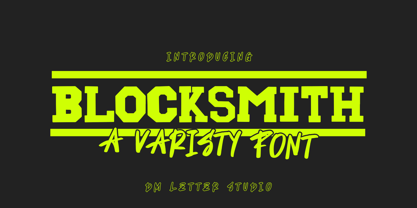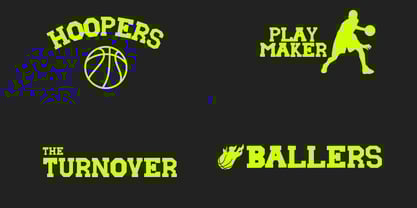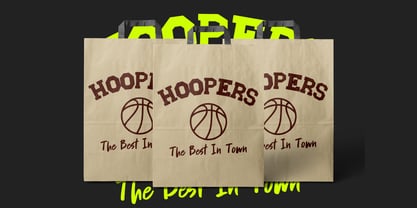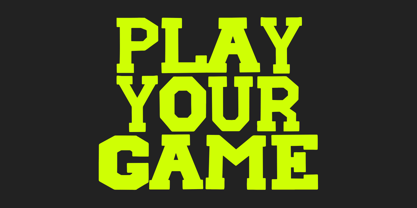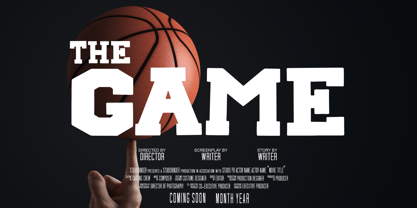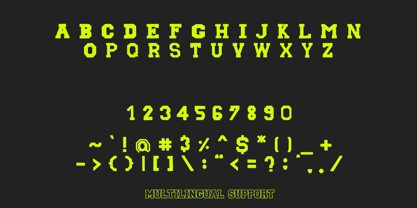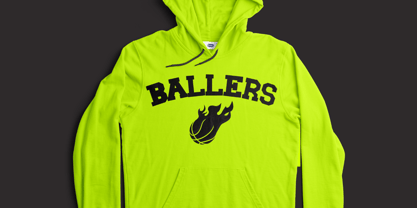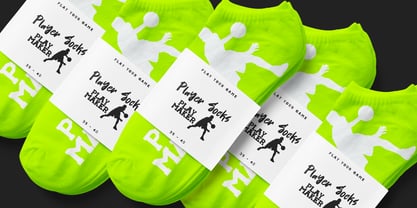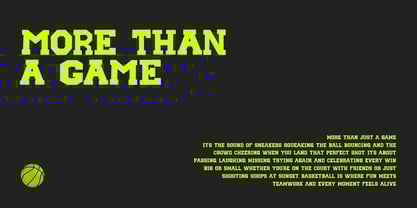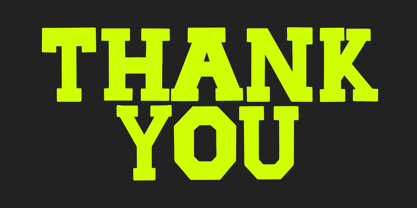
Blocksmith
by DM Studio
The Blocksmith Font Family was designed by Dimas Prasetyo and published by DM Studio. Blocksmith contains 1 styles.
Blocksmith – A Bold and Classic Varsity Font Blocksmith is a strong, all-caps varsity font built for impact. With thick strokes, sharp corners, and athletic attitude, this typeface channels school spirit, sports design, and vintage Americana. Perfect for team jerseys, sports logos, college banners, varsity jackets, and retro-style branding, Blocksmith delivers that traditional block-letter look with clean execution and bold style. Features: Classic Varsity Style: Inspired by traditional sports lettering with a sturdy, collegiate vibe. Perfect for Athletic Designs: Ideal for school gear, team logos, sports merch, and spirit wear. Sharp & Strong Look: Thick lines and confident shapes that command attention in print and digital formats. Complete Character Set: A–Z uppercase letters, numbers, punctuation, and multilingual support. Easy Installation: Works on both Mac and Windows.
Designers: Dimas Prasetyo
Publisher: DM Studio
Foundry: DM Studio